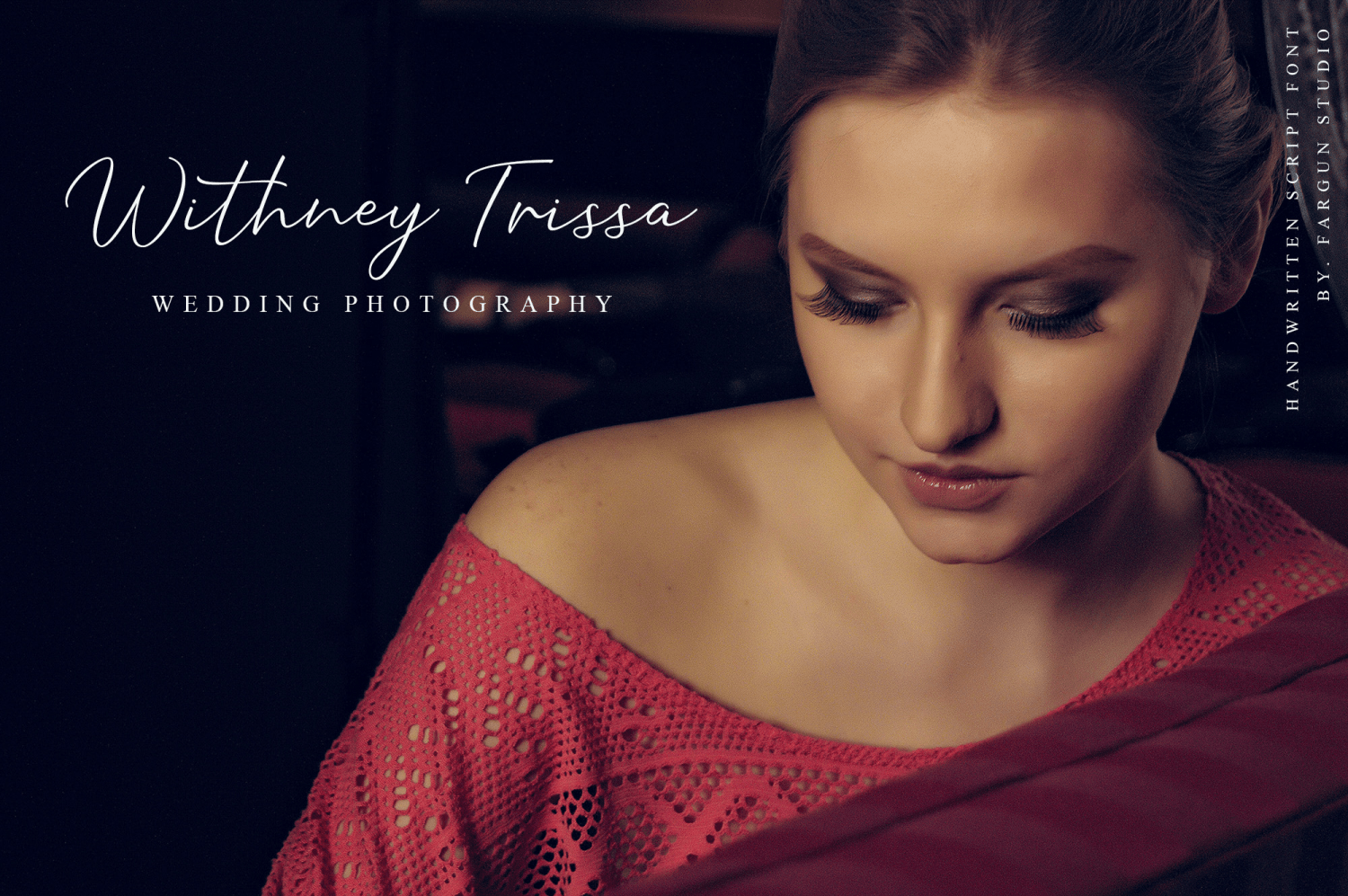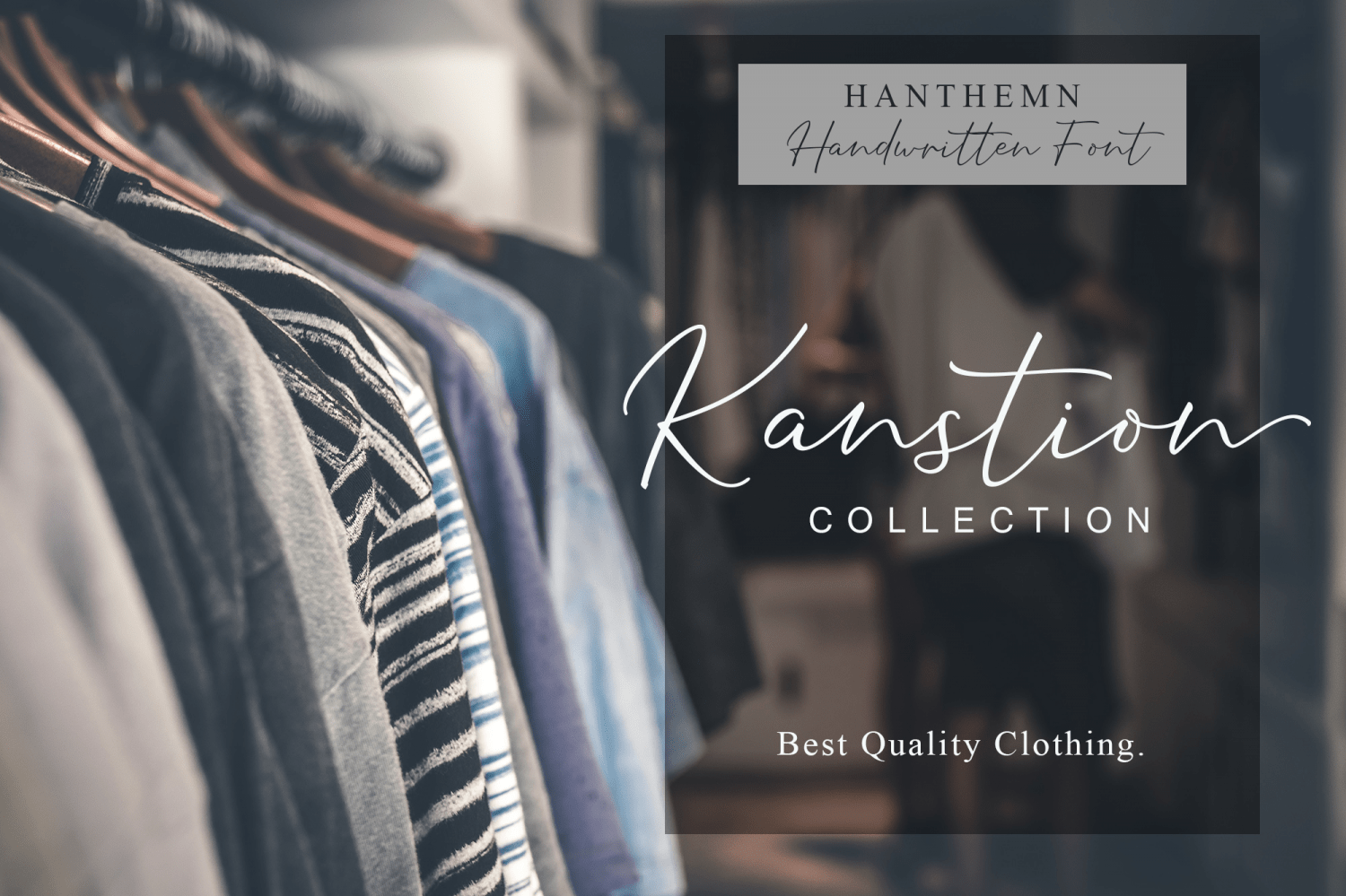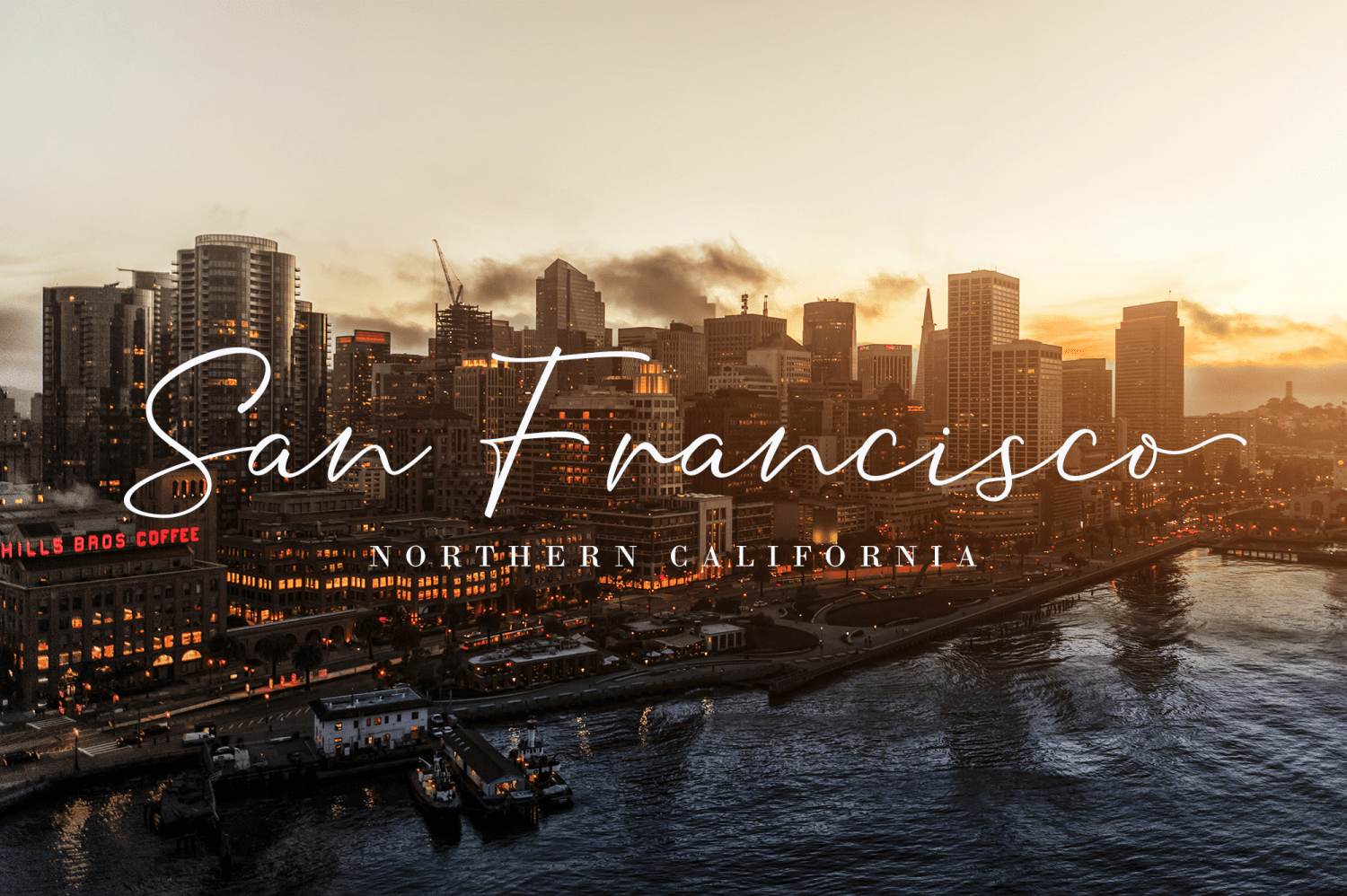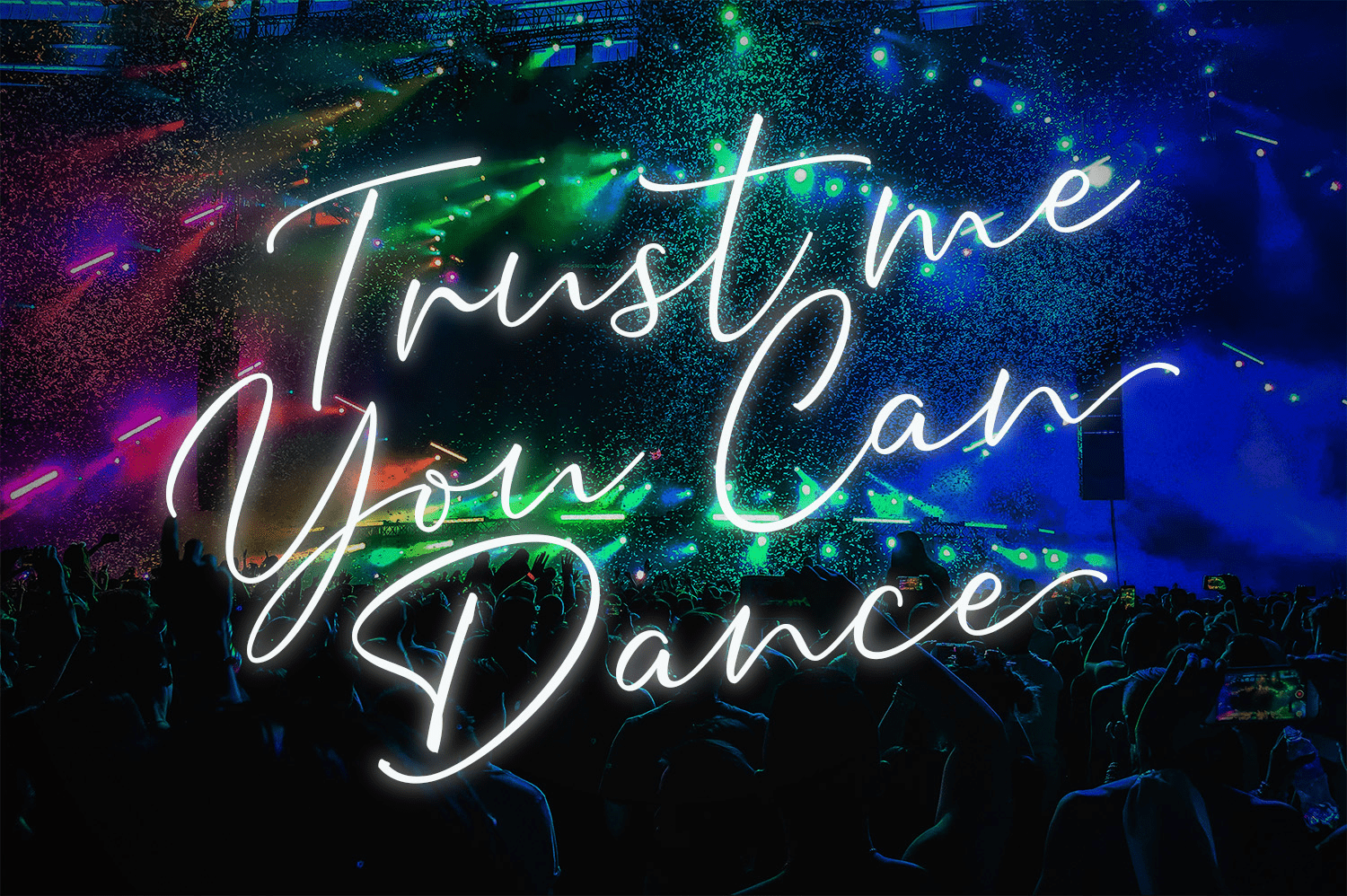
About Hanthemn Script
Hanthemn Script is modern script that perfect for photography, branding, signature. It is so beautiful and classy for your projects. This Font has given PUA code (specially coded fonts). So that all the alternate characters can easily be accessed in…